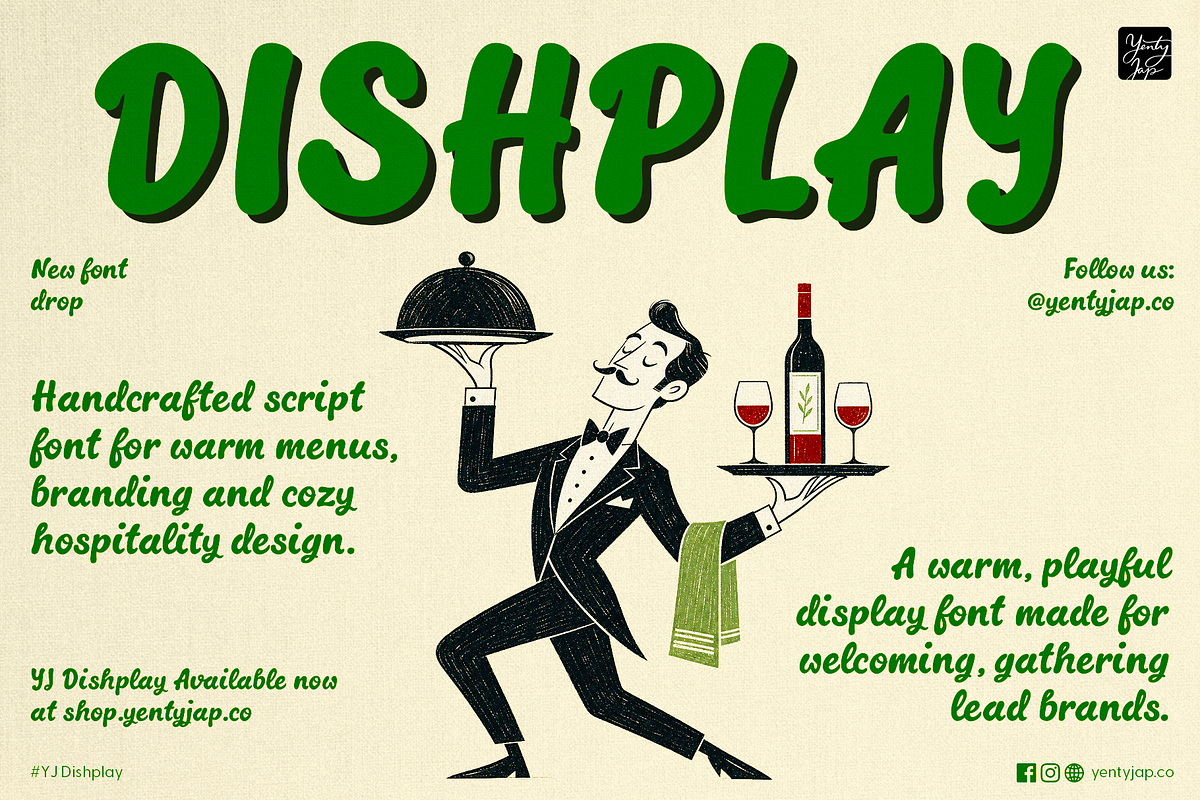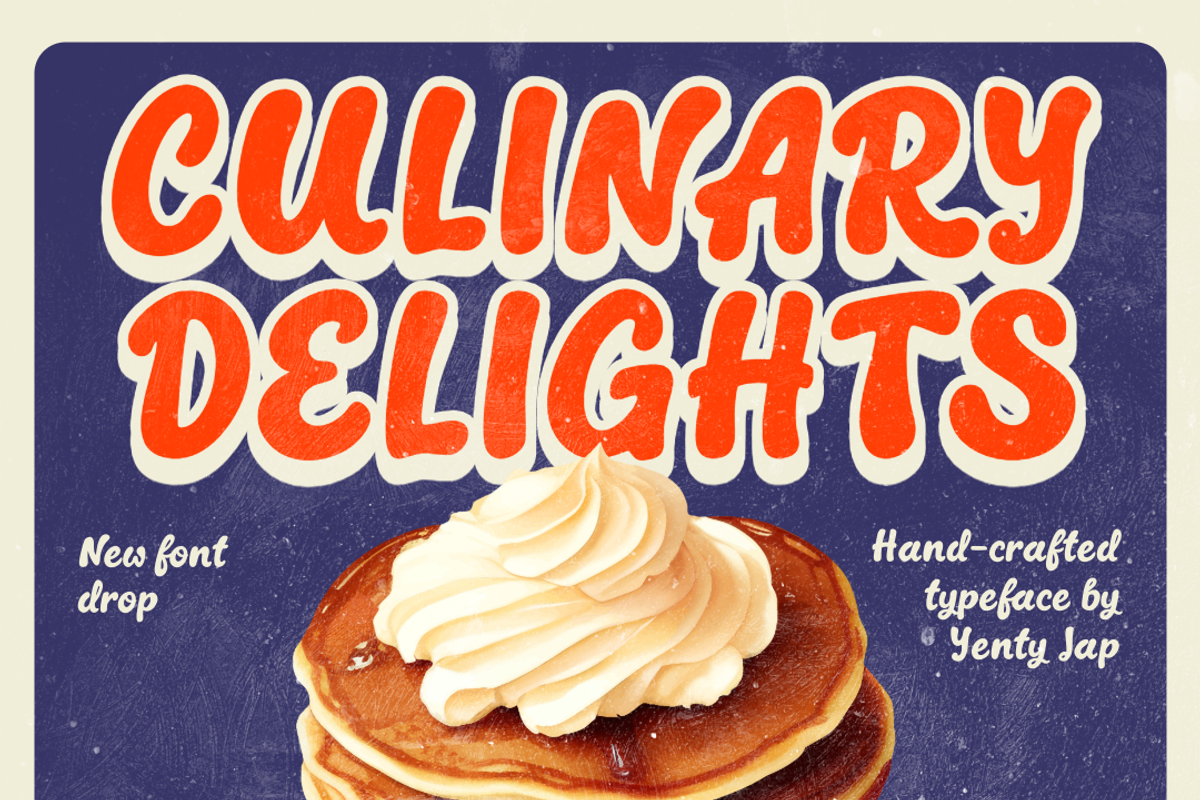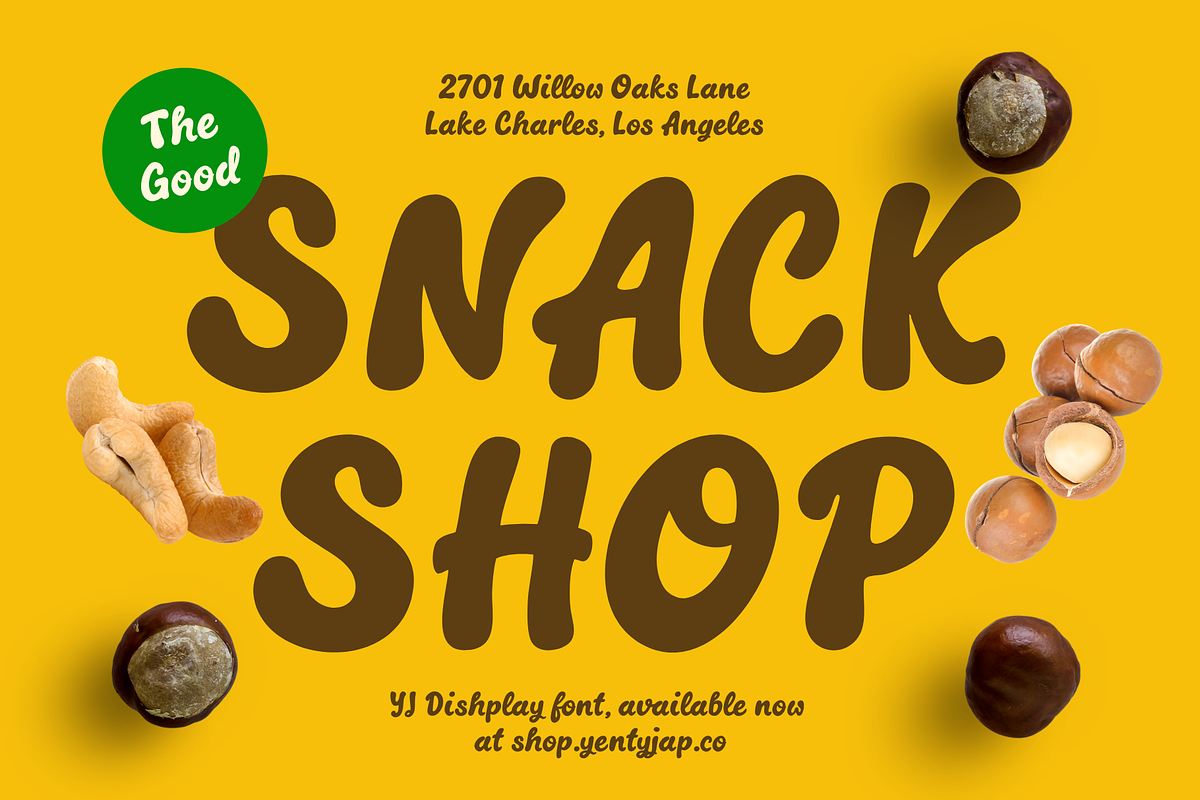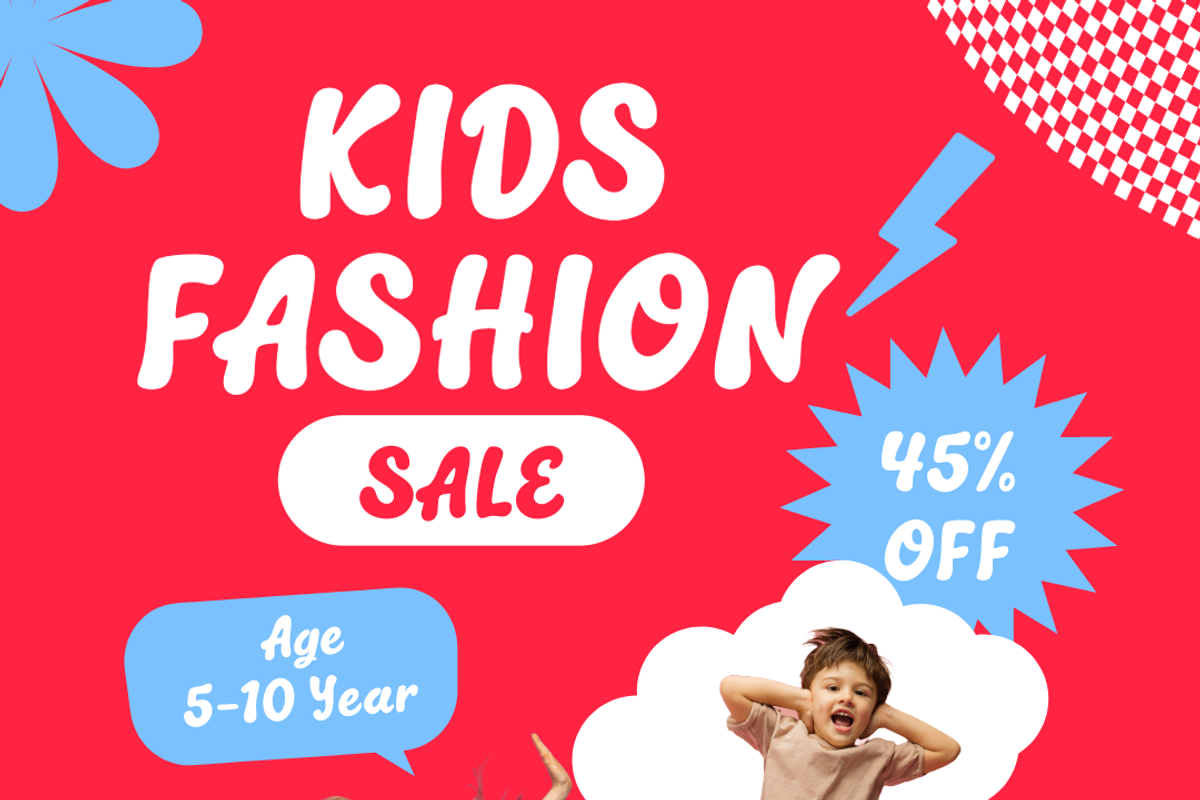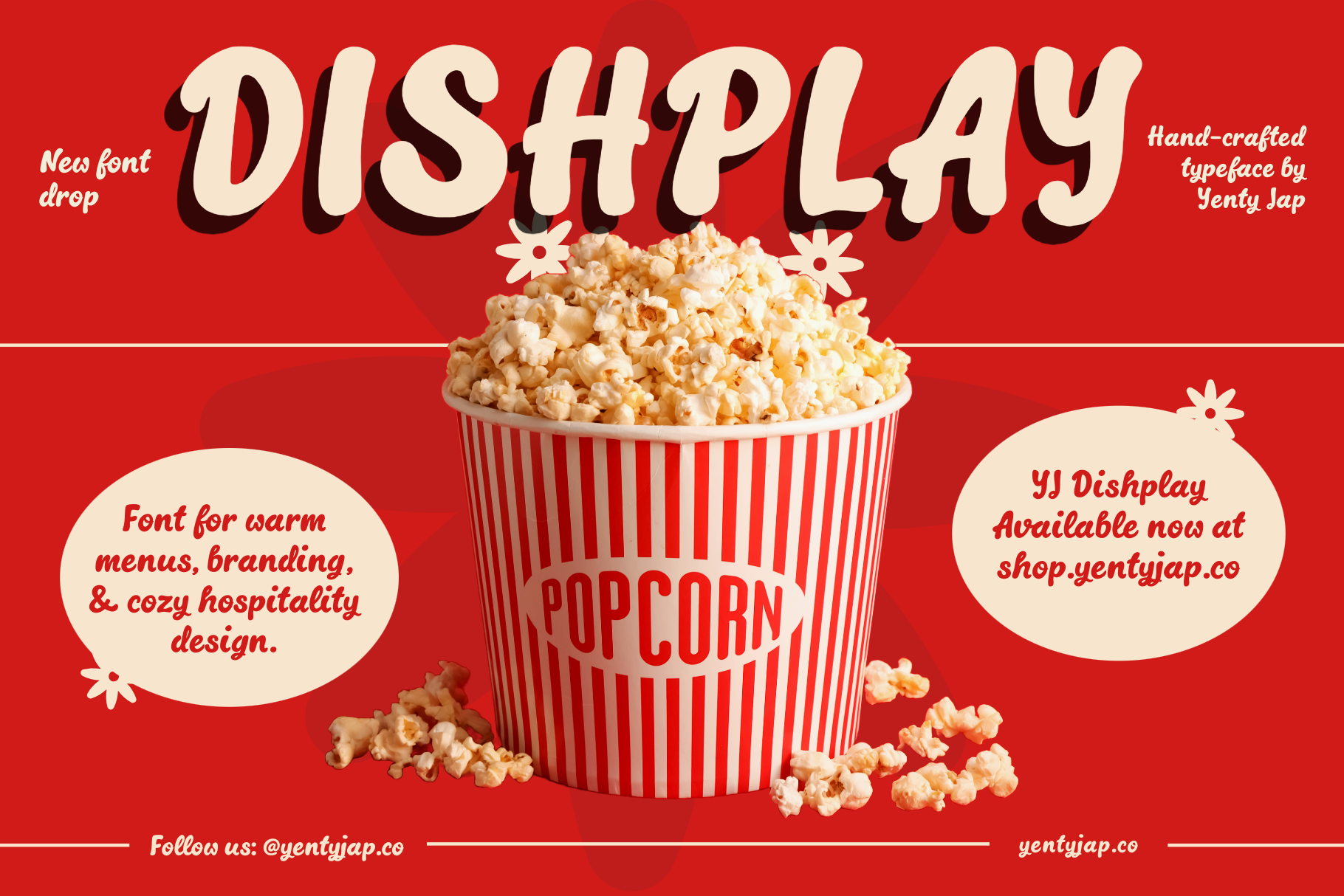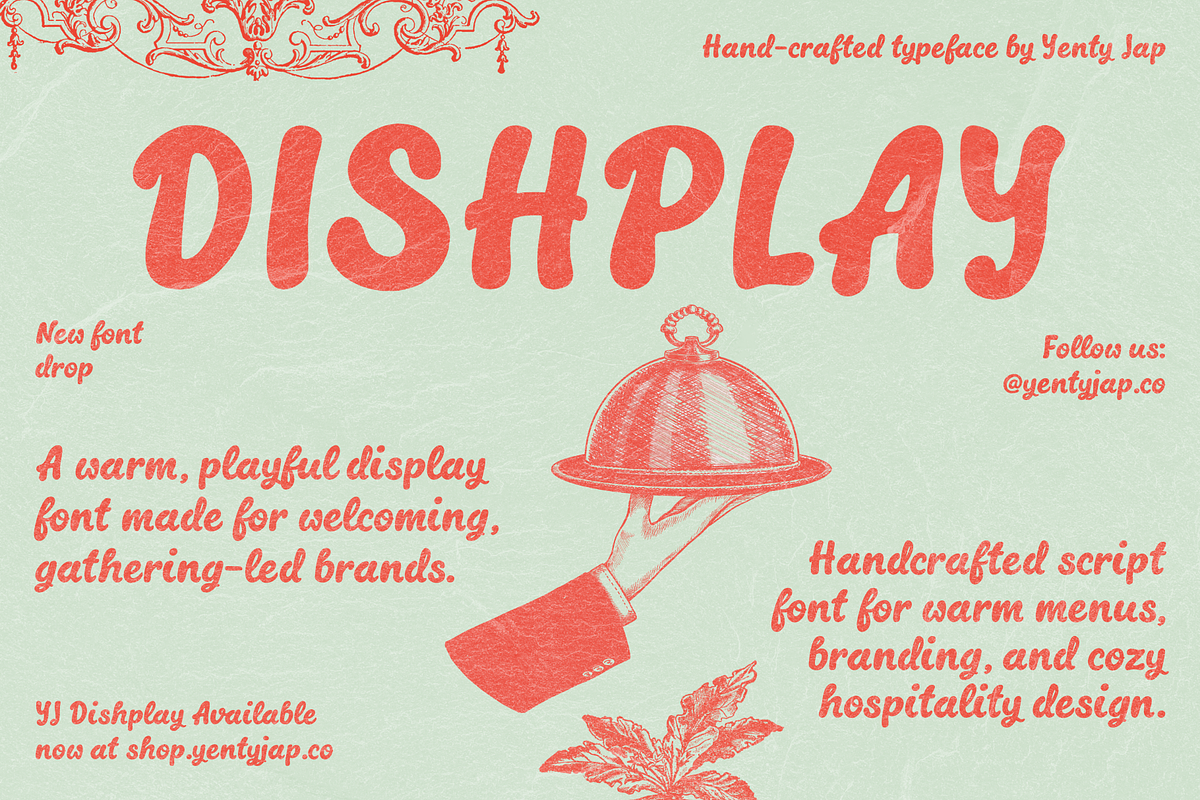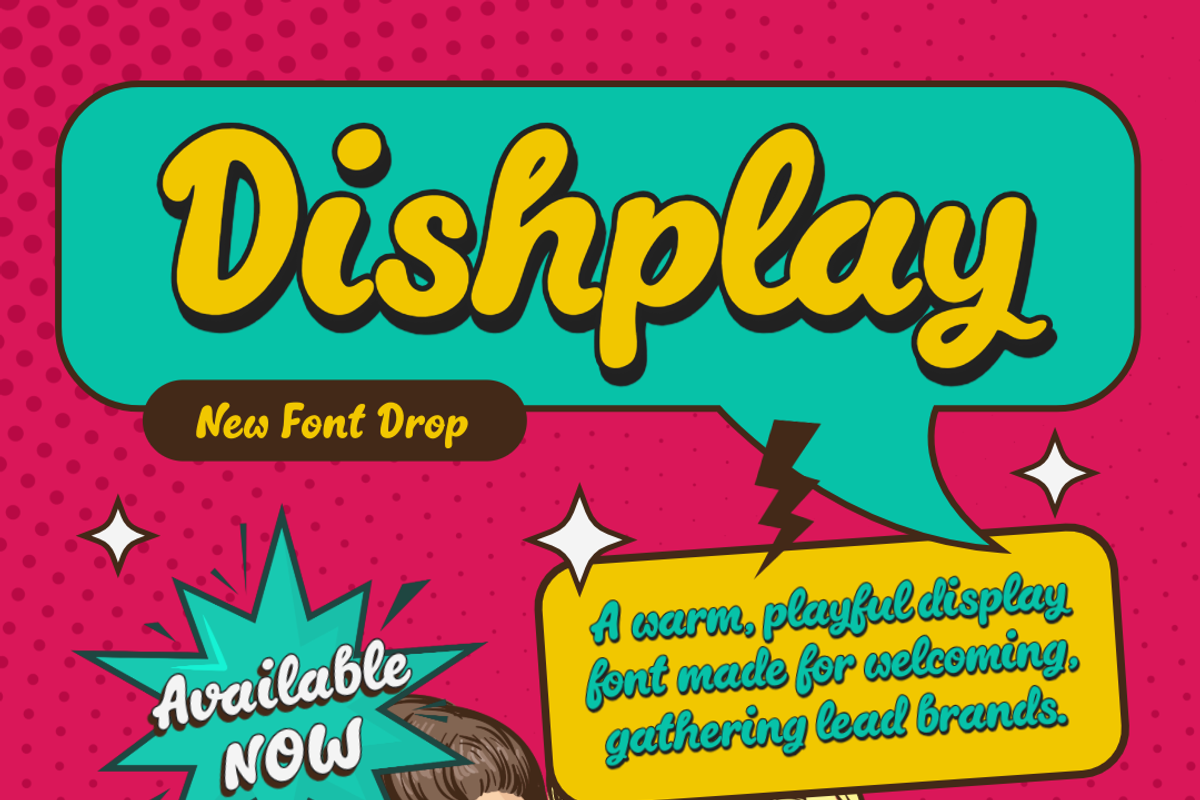
YJ Dishplay – Playful Display Font
Meet YJ Dishplay, a friendly display font that feels like pulling up a chair at a table already set for you. It’s bold enough to lead the room, soft enough to feel human, and warm enough to make even a menu header feel like a welcome hug.
Designed for brands built around gathering, shared food, shared stories, and shared space, YJ Dishplay brings a sense of hospitality into every letter. It’s the font for designers who believe typography should feel lived‑in — like the clink of glasses, the hum of conversation, or the comfort of a familiar café.
Use it for branding, menus, packaging, social media, signage, and any project where you want people to feel instantly at home. YJ Dishplay is expressive without shouting, playful without being silly, and crafted with the kind of care that makes communication feel like connection.
If your brand says “come in, stay awhile,” this font will say it with you.